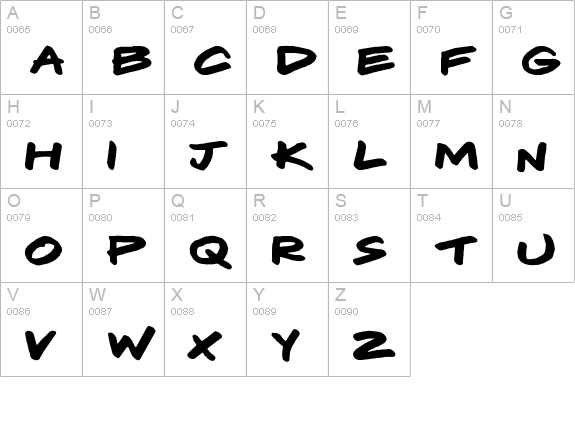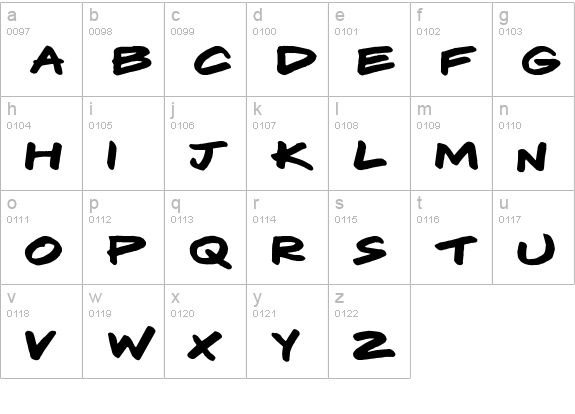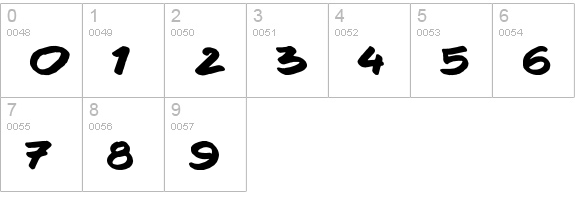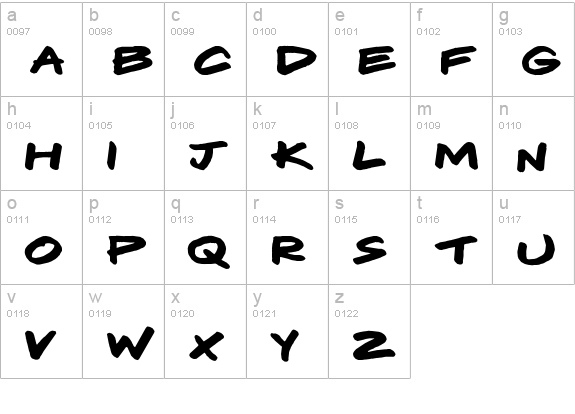
Komix Font Details
Komix font is a fun and playful typeface that is perfect for comic books, graphic novels, and other creative projects. With its bold lines and quirky design, Komix font brings a sense of energy and excitement to any text. Whether you're looking to add a touch of whimsy to your designs or make a bold statement, Komix font is sure to impress. Best of all, Komix font is completely free to download at FontsMarket.com. This means you can easily add this dynamic font to your collection without breaking the bank. So go ahead and unleash your creativity with Komix font today!